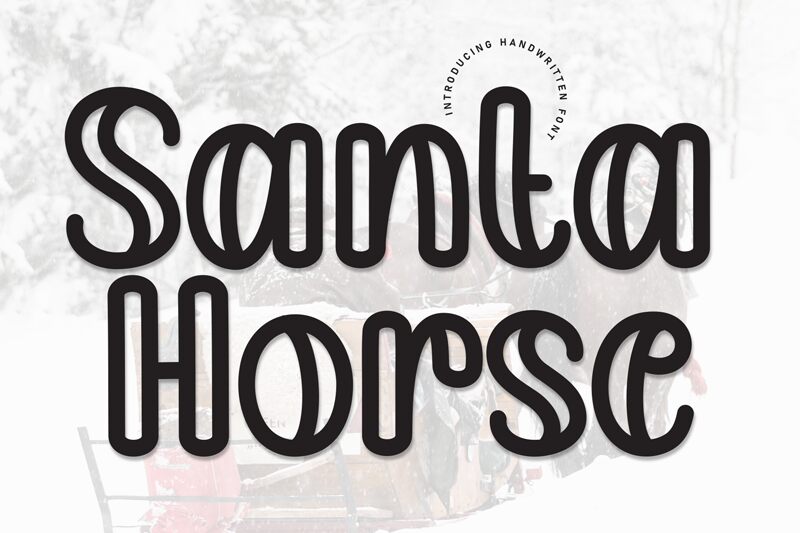
Santa Horse
Santa Horse font by Andi Moz is a free bold decorative display font. Built from plush, ribbon-like strokes with soft corners and a gentle inline shine, it packs a cheerful punch without shouting. The rhythm is steady and legible, so headlines feel bouncy yet tidy—great when you want warmth and charm without the chaos.
Using Santa Horse, playful branding comes to life: holiday merch and cards, candy or bakery packaging, kids’ event posters, toy labels, café boards, and thumbnail graphics. This free font thrives large, where its cushy curves read instantly; pair it with a light geometric sans for body copy and give it a touch of extra tracking to let those bubbly forms breathe.